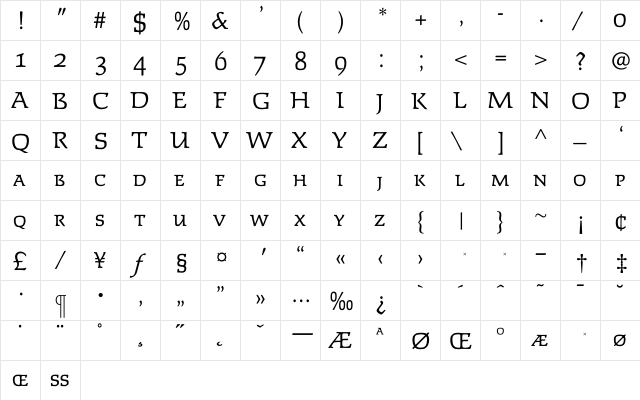
FaustLightExpert Regular
Design Context for FaustLightExpert Typeface
FaustLightExpert offers clean, dependable letterforms without strong stylistic allegiance, making it a practical choice for designers who need flexibility. The delicate stroke weight brings airiness and refinement to layouts.